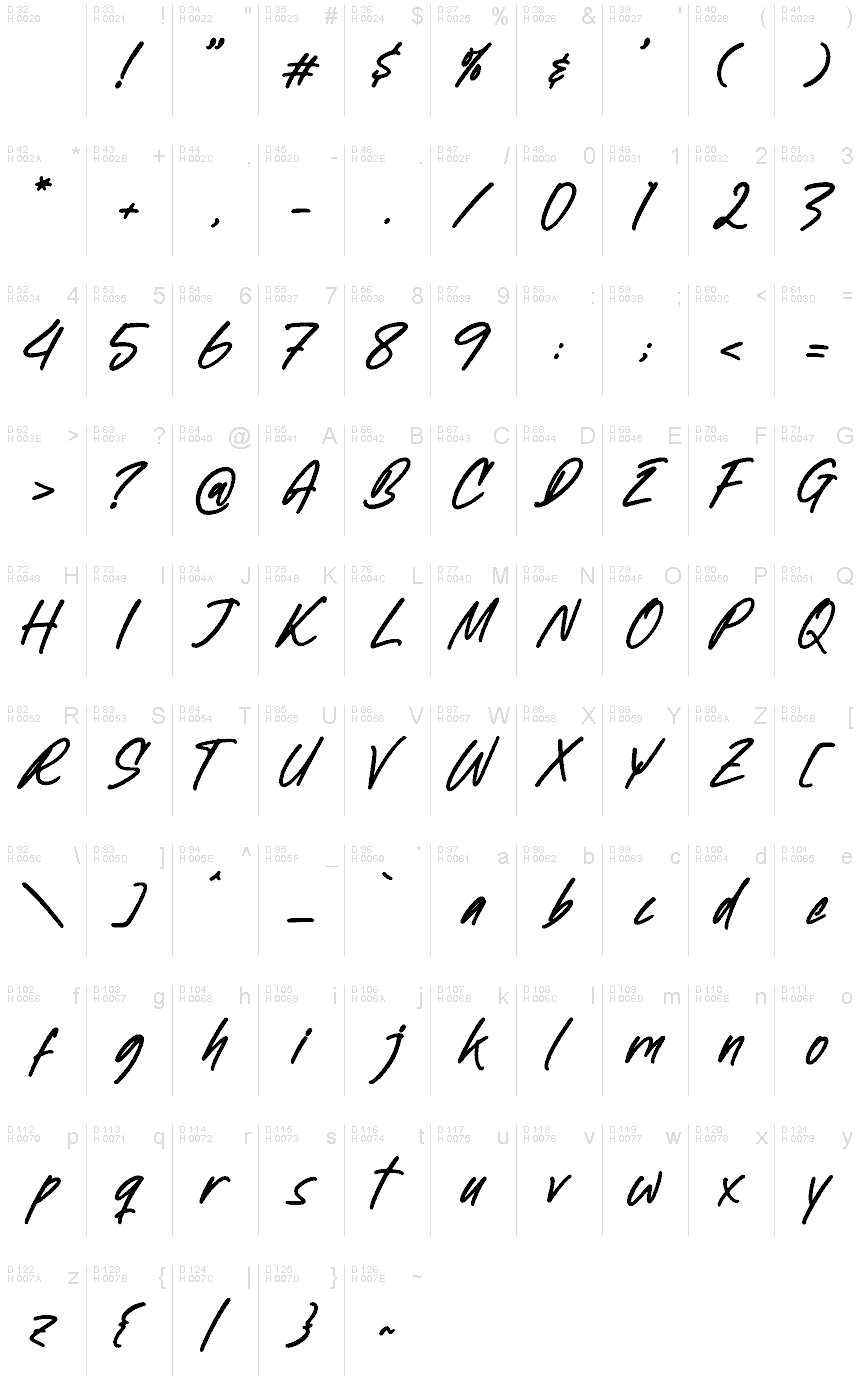
Newtonick Chodes
Newtonick Chodes font by Letterena Studios is a free handwritten font where quality fluid movement enters the scene. It holds casual elegance and presents an expressive character with an italicized style, its unique personality effortless to spot. Almost like a signature, the texts designed appear natural and contemporary each time.
The combination of all of these factors allows Newtonick Chodes to embolden your homepage designs, social media posts, personalized letters and notes, CD covers, business cards for tattoo parlors or hair salons, posters and ads for get-togethers and events otherwise allowing you to make exceptional plans for any enquiry or update.